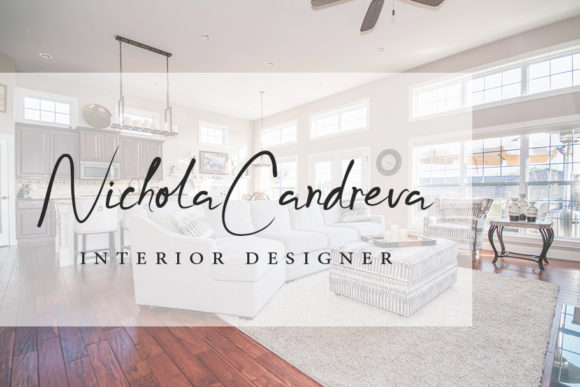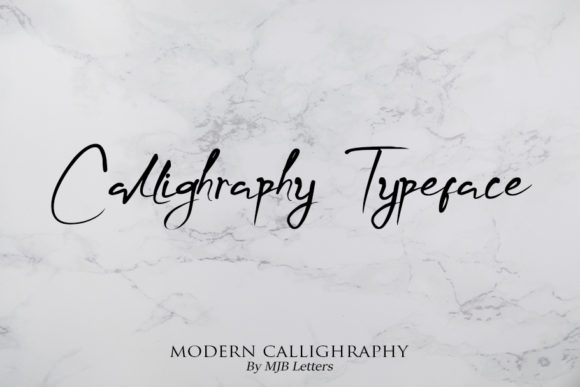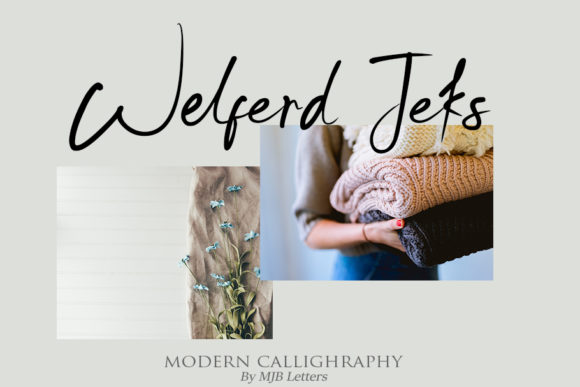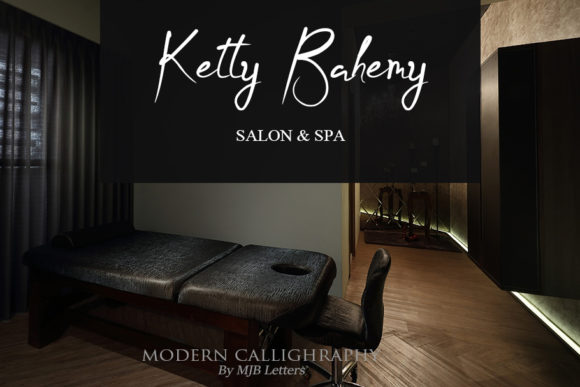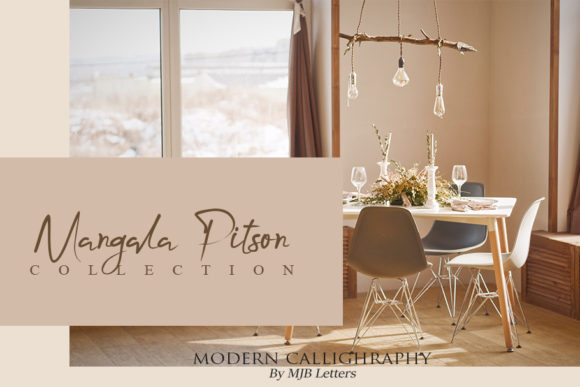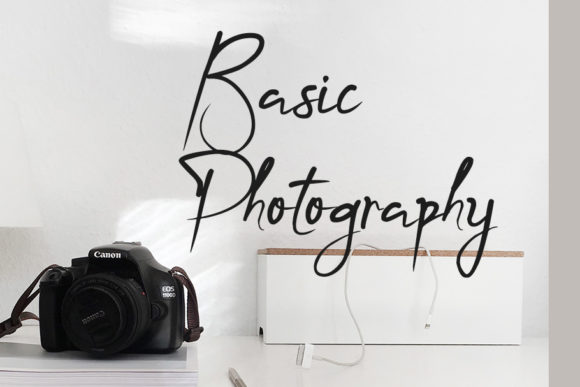
Discover the Elegance of Andalusia Font: A Perfect Addition to Your Design Arsenal
In the world of typography, few fonts manage to capture the essence of elegance and personal touch as effectively as the Andalusia Font. This beautiful, handwritten font has been making waves among designers and crafters alike, and for good reason. With its natural writing style and versatile appeal, Andalusia Font is an excellent choice for anyone looking to add a unique flair to their designs.
The Charm of Andalusia Font
The Andalusia Font is an elegant handwritten font that boasts a very natural writing style. Its fluid strokes and subtle imperfections give it a distinctly human feel, making it perfect for designs that require a personal touch. Whether you’re working on a branding project, a wedding invitation, or a blog post, Andalusia Font can help you create a warm and inviting atmosphere that resonates with your audience.
Key Features of Andalusia Font
- Natural Writing Style: Andalusia Font’s natural writing style makes it look like it was written by hand, adding a personal touch to your designs.
- Elegant and Refined: The font’s elegant and refined appearance makes it suitable for a wide range of design projects, from luxury brands to wedding invitations.
- Versatile: Andalusia Font can be used for both digital and print designs, making it a versatile addition to your font collection.
- Easy to Read: The font’s clear and legible design ensures that your text is easy to read, even at smaller sizes.
Uses of Andalusia Font
Andalusia Font’s versatility makes it suitable for a wide range of design projects. Here are some ideas to get you started:
- Branding and Logo Design: Use Andalusia Font to create a unique and memorable brand identity that stands out from the crowd.
- Wedding Invitations and Stationery: Add a touch of elegance and sophistication to your wedding invitations and stationery with Andalusia Font.
- Blogging and Digital Content: Use Andalusia Font to create engaging and readable blog posts, social media graphics, and other digital content.
- Crafting and DIY Projects: Andalusia Font is perfect for crafters and DIY enthusiasts who want to add a personal touch to their projects, such as handmade cards, gift tags, and more.
Tips for Using Andalusia Font
To get the most out of Andalusia Font, here are some tips to keep in mind:
- Use it with a clear background: Andalusia Font looks best on a clear or light-colored background, which helps to showcase its elegant design.
- Experiment with font sizes: Andalusia Font can be used at a variety of font sizes, from large headings to smaller body text.
- Pair it with other fonts: Try pairing Andalusia Font with other fonts to create a unique and visually appealing typography combination.
| Author | MJB Letters |
In conclusion, Andalusia Font is a beautiful and versatile handwritten font that can add a personal touch to your designs. With its natural writing style, elegant appearance, and versatility, it’s an excellent choice for designers and crafters alike. Whether you’re working on a branding project, a wedding invitation, or a blog post, Andalusia Font is sure to impress. So why not give it a try and see how it can elevate your designs?